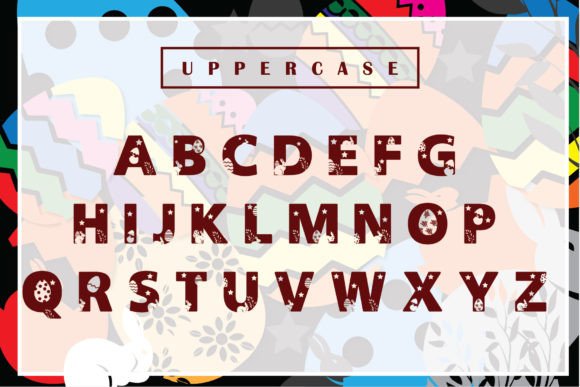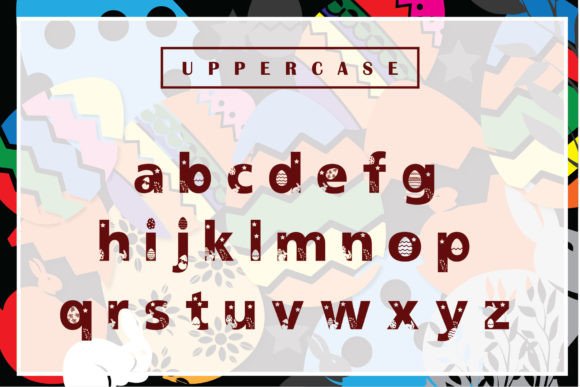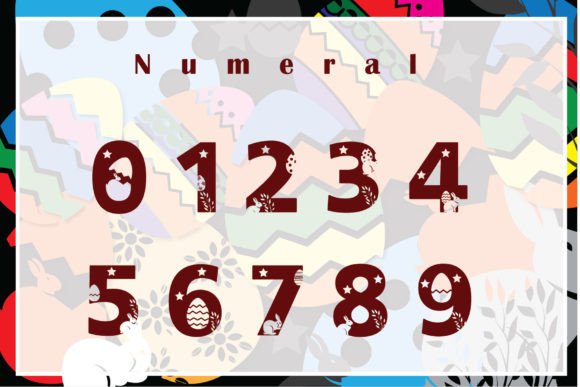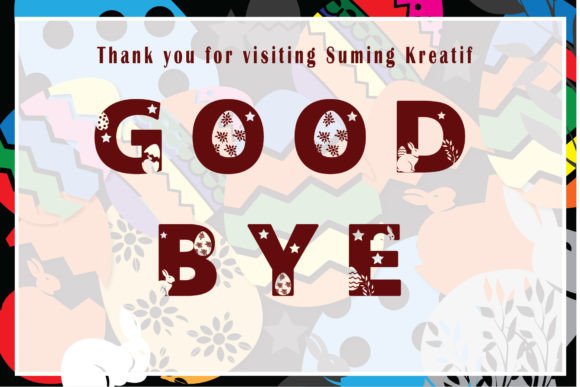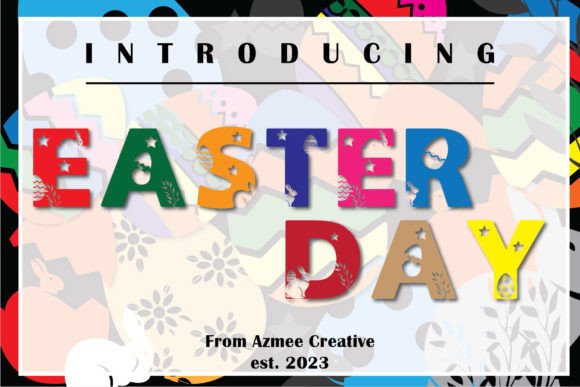
Easter Day Font: Elevate Your Designs with Elegance and Sophistication
Are you looking for a font that can add a touch of sophistication to your design projects? Look no further than the Easter Day Font. This stylish and eye-catching typeface is designed specifically for use in headlines, titles, and other short bursts of text, making it perfect for advertising, branding, and print design.
What Makes Easter Day Font Stand Out?
The Easter Day Font boasts bold lines, elegant curves, and unique character shapes that set it apart from other typefaces. Its distinctive design elements make it an excellent choice for designers and crafters who want to create visually striking text that grabs attention. Whether you’re working on a logo, brochure, or social media graphic, this font is sure to make your message stand out.
Key Features of Easter Day Font
- Bold Lines: The Easter Day Font features bold lines that give it a sturdy and confident look, making it perfect for headlines and titles.
- Elegant Curves: The font’s elegant curves add a touch of sophistication and refinement, making it suitable for high-end branding and advertising projects.
- Unique Character Shapes: The Easter Day Font’s unique character shapes make it easy to recognize and remember, adding to its overall impact.
The Easter Day Font is an excellent choice for designers and crafters who want to elevate their designs with a stylish and sophisticated typeface. Its versatility makes it suitable for a wide range of design projects, including:
- Advertising: Use the Easter Day Font to create eye-catching headlines and titles that grab attention and drive results.
- Branding: Establish your brand’s identity with a unique and memorable typeface that reflects your values and personality.
- Print Design: Add a touch of elegance to your print designs, including brochures, flyers, and posters.
Tips for Using Easter Day Font Effectively
To get the most out of the Easter Day Font, follow these tips:
- Use it sparingly: The Easter Day Font is designed for headlines and titles, so use it sparingly to maximize its impact.
- Pair it with a complementary font: Pair the Easter Day Font with a complementary font to create visual interest and hierarchy.
- Experiment with colors and textures: Experiment with different colors and textures to add depth and dimension to your designs.
| Font Name | Easter Day Font |